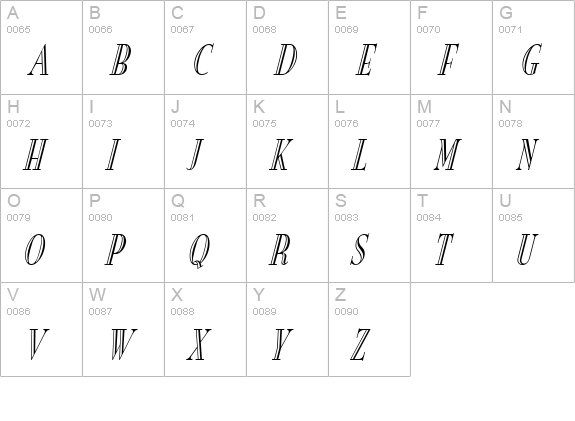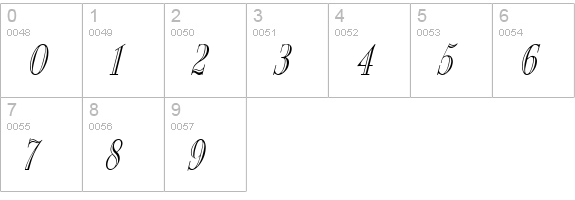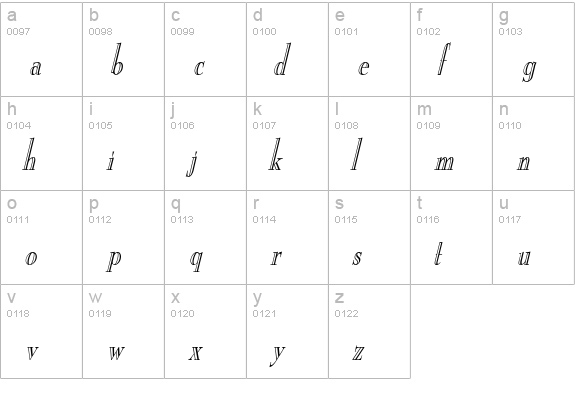
New Eng. Engr. Condensed Italic Font Details
New Eng. Engr. Condensed Italic is a distinctive, condensed-width, italic variant in the New typeface family \xE2\x80\x94 well suited to design and typography projects.
Introducing New Eng. Engr. Condensed Italic font – a sleek and sophisticated typeface designed for modern design projects. This elegant font features condensed letterforms with a subtle italic touch, perfect for adding a touch of refinement to any layout. The New Eng. Engr. Condensed Italic font exudes a sense of professionalism and style, making it ideal for branding, editorial design, and more. Best of all, this exquisite font is available for free download at FontsMarket.com. Whether you're working on a logo, poster, or website, the New Eng. Engr. Condensed Italic font will elevate your design with its clean lines and timeless appeal. Don't miss out on this versatile and stylish typeface – download it today and enhance your projects with a touch of elegance.